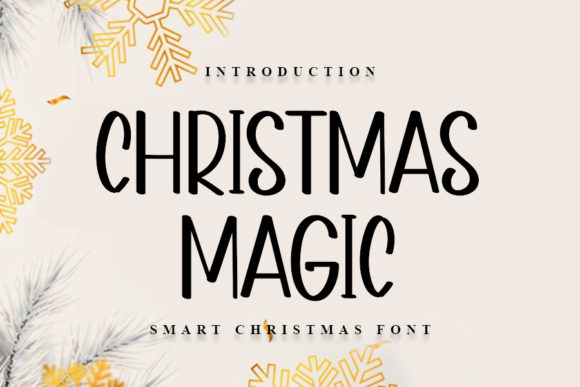
Introducing Christmas Magic Font, the best font choice for your business plan! This simple, cute, and elegant sans serif font is here to add a touch of magic to your creative holiday designs. Created by NYA Letter, this font will truly make your projects stand out from the crowd.
When it comes to capturing the essence of the holiday season, Christmas Magic Font reigns supreme. Its bold and eye-catching appearance immediately draws attention and evokes a sense of joy and excitement. Whether you're designing greeting cards, banners, or even marketing materials for your business, this font will make a lasting impression.
The versatility of Christmas Magic Font knows no bounds. It seamlessly blends into any design, effortlessly complementing your overall aesthetic. From the playful and whimsical to the professional and sophisticated, this font adapts beautifully to your creative vision. Imagine the impact it will have on your business plan, making it captivating and memorable.
With Christmas Magic Font, your holiday designs will truly come to life. Each letter exudes a unique charm and elegance that captivates the viewer's heart. The smooth lines and carefully crafted curves create a sense of warmth and coziness, instantly transporting your audience to the enchanting world of the holiday season.
In conclusion, Christmas Magic Font is your go-to choice for creating captivating and eye-catching designs this holiday season. Its simplicity, cuteness, and elegance make it the perfect companion for all your creative projects. Say goodbye to dull and ordinary fonts and embrace the enchantment of Christmas Magic Font. Download it now and watch your designs come alive!